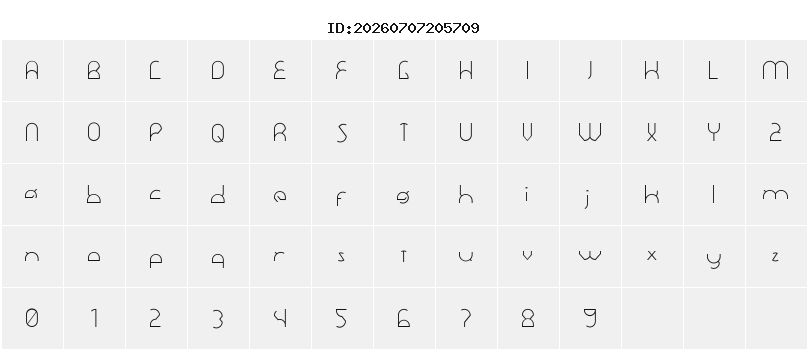
Dawner Preview
• Font Name: Dawner
• Font Style: Light
• Font ID: AlbertoVillanueva: Dawner Light: 2014
• Full Font Name: Dawner Light
• Version: Version 1.000 2014 initial release
• PostScript Name: Dawner-Light
• Character Count: 228
• Designer: Alberto Villanueva
• Manufacturer: Alberto Villanueva
About Dawner.ttf
Dawner.ttf is a modern, elegant sans-serif font designed for ultimate readability and visual harmony. Perfect for branding, headlines, web design, and print materials.